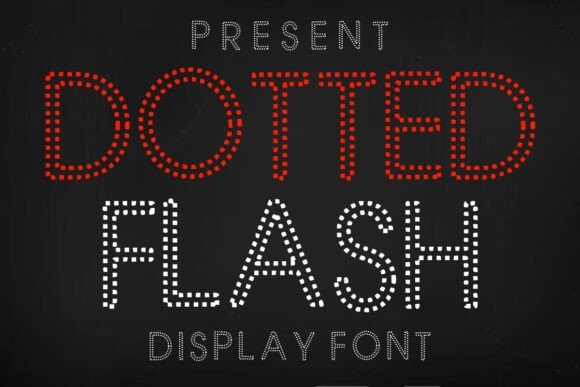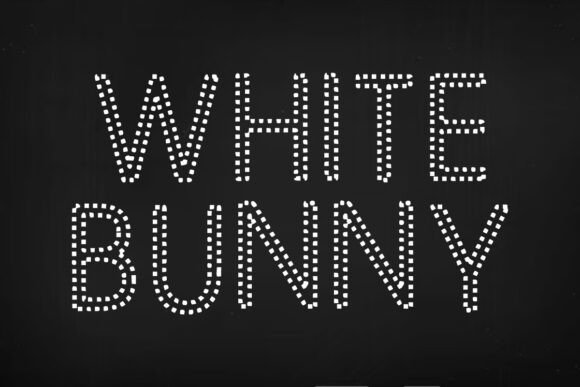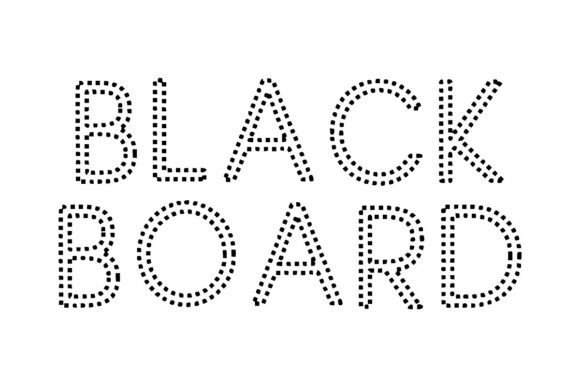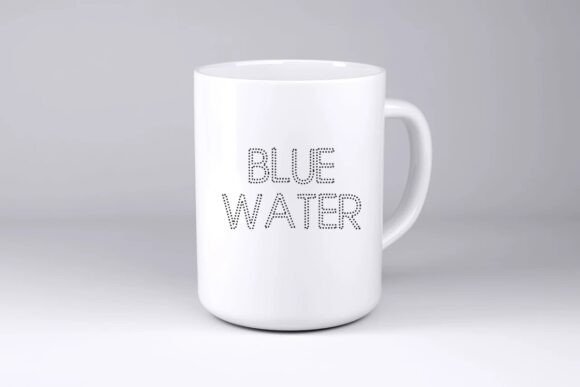
Dotted Flash Font
About the Dotted Flash Font
Discover the charm of Dotted Flash Font. This font is a perfect blend of modern aesthetics and classic appeal. Dotted Flash is a polka dot simple -decorated display font. This easy-to-read typeface conveys impeccable friendliness, and it is perfect for games. Whether you’re using it for crafts, digital design, presentations, or greeting cards, this font has the potential to become your favorite go-to font, no matter the occasion!
Dotted Flash excels in headlines, short titles, and playful branding projects where its friendly personality shines. Its polka-dot detailing makes it ideal for children’s products, celebratory designs, or projects needing a touch of vintage charm. However, its decorative nature makes it unsuitable for body text or UI elements requiring high readability.
For optimal pairing, consider a clean sans-serif like Open Sans for body copy to balance the playfulness of Dotted Flash. Alternatively, a classic serif such as Merriweather can add a sophisticated counterpoint, lending a touch of elegance to designs. Avoid pairing it with other highly decorative fonts, as this would create visual clutter.
The overall personality of Dotted Flash is cheerful and approachable, making it a great choice for brands focusing on fun, approachability, and lightheartedness.